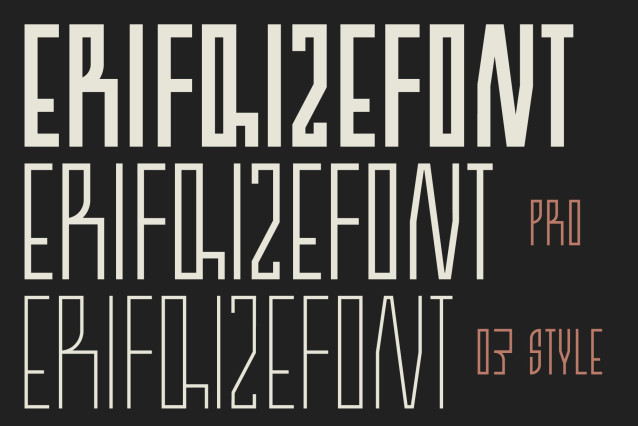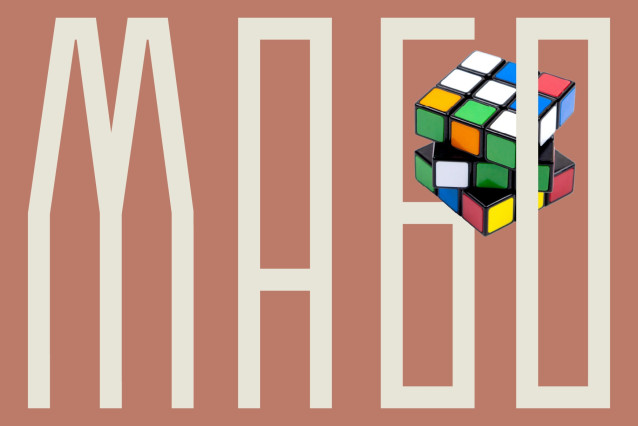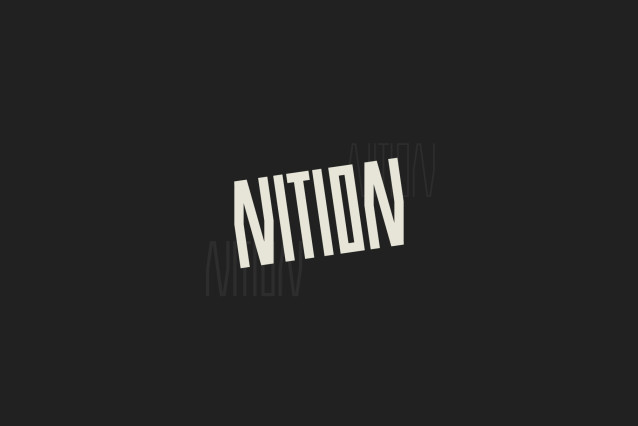
Nition Font
Nition Font is a modern condensed display typeface built for speed, strength, and clarity. Featuring tall proportions and sharp geometric forms, Nition delivers a strong visual presence inspired by sports, motion, and high-performance design.